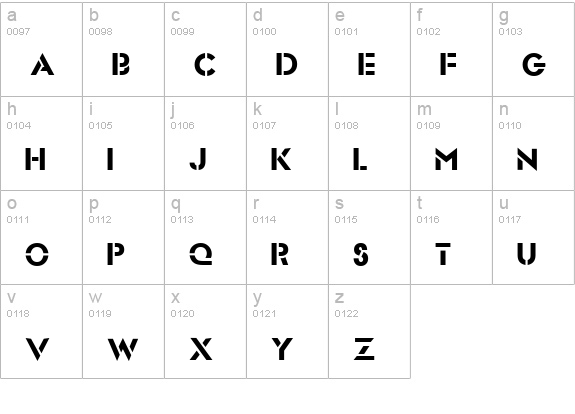
Stencil Sans Normal Font Details
Stencil Sans Normal is the standard, neutral variant in the Stencil typeface family \xE2\x80\x94 well suited to general body text, paragraphs, and standard typographic work.
Stencil Sans Normal font is a modern and versatile typeface that combines the classic stencil style with a clean and contemporary look. With its bold yet elegant design, this font is perfect for a wide range of design projects, from posters and logos to packaging and branding. This font features a balanced combination of sharp edges and smooth curves, creating a unique visual impact that is both striking and easy to read. Its clean lines and simple yet stylish appearance make it ideal for both digital and print applications. Best of all, Stencil Sans Normal font is available for free download at FontsMarket.com, making it accessible to designers and creatives of all levels. Whether you're working on a personal project or a professional design, this font is sure to enhance your work with its modern and distinctive style.